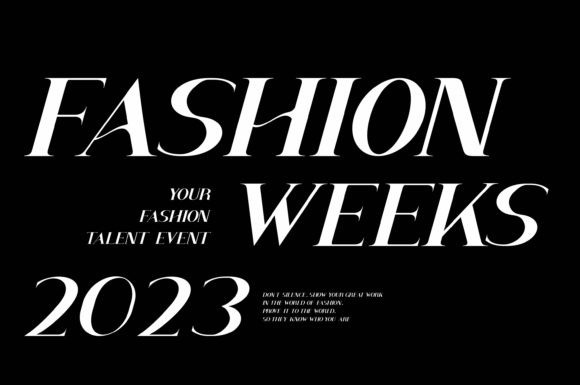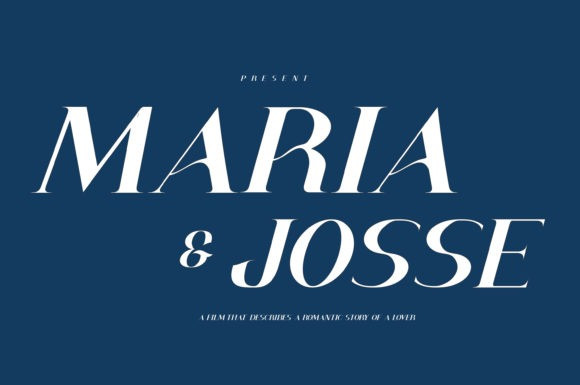
ROSE BELLA FONT
Rose Bella Font is an elegant and bold serif font, featuring a modern style, looking classy and full of charisma. You can use it for various projects, such as blog posts, logos, branding, ads, invitations, greeting cards, planners, photo albums, decorations, and much more.